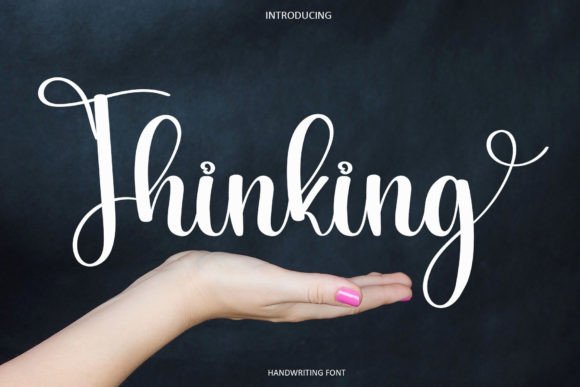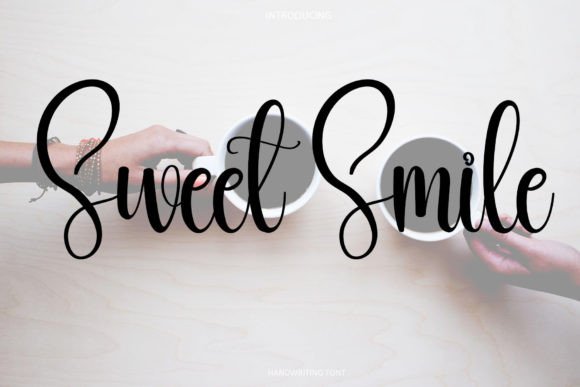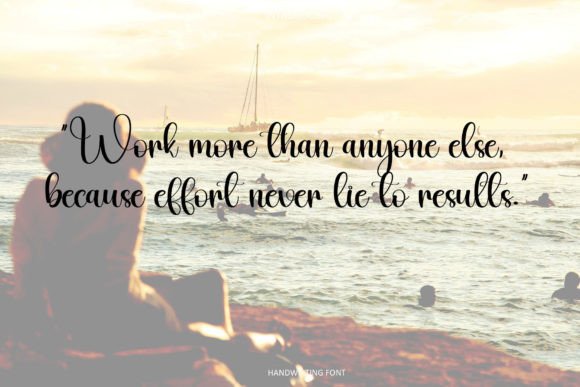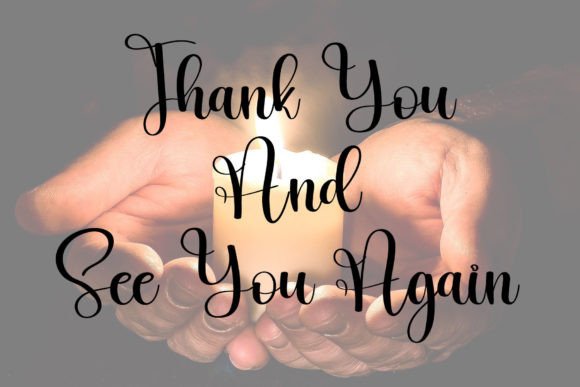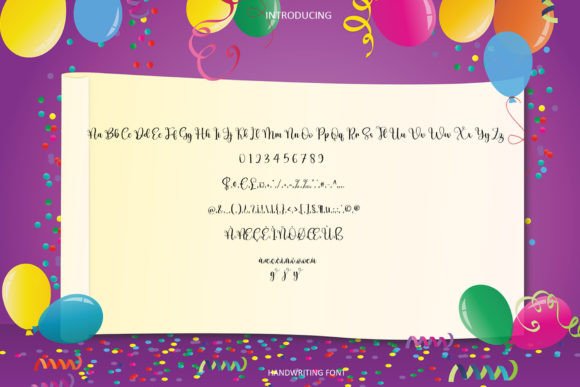
Thinking Font
About Thinking Font
“Thinking” is a sweet and whimsical script font designed to bring an elegant and luxurious spark to your design projects. With characters that gracefully dance along the baseline, this font offers a flowing and thin script that adds a touch of sophistication to any creative endeavor.
The whimsical and flowing nature of “Thinking” makes it a versatile choice for various design applications. Imagine the impact it can have on wedding invitations, transforming the text into a beautifully flowing expression of refinement. The delicate strokes and characters that dance along the baseline make it ideal for thank-you cards, quotes, and greeting cards, imparting a sense of charm and grace.
In branding and business materials, “Thinking” serves as a distinctive element, introducing an elegant and memorable visual identity. The handwritten charm contributes to creating a unique brand presence, making it suitable for logos, business cards, and any application that benefits from a touch of handwritten elegance.
For digital platforms, “Thinking” is well-suited for social media graphics, banners, or any project requiring a refined handwritten font. Its flowing and whimsical appearance catches the eye, making it suitable for a range of applications, from digital artwork to promotional materials.
When applied to print materials such as posters or packaging, “Thinking” becomes a defining feature, adding a delicate and elegant touch to the overall aesthetic. The handwritten script creates a visual allure, enhancing the engagement and memorability of the design.
With its sweet, whimsical, and flowing script, “Thinking” offers a timeless and sophisticated look. This font is more than just a typeface; it’s a design tool that elevates your creative projects, making them come alive with a touch of elegance. Whether you’re crafting for digital or print platforms, “Thinking” invites you to infuse your designs with a sense of charm and refinement.